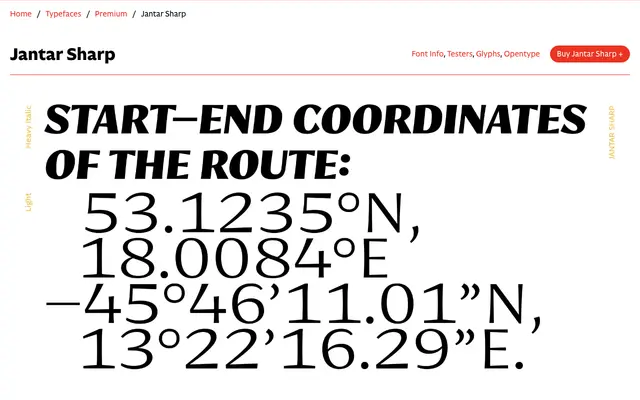
Jantar Sharp
CAST · Radek Łukasiewicz · 2019
A text family by Radek Łukasiewicz built on flared terminals that sits between serif and sans, optimised for continuous reading across print and screen.
Seven weights from ExtraLight to Heavy, each with a matching italic, give the family considerable range without straying from its core purpose of sustained reading. The flared stroke endings borrow selectively from different historical periods rather than replicating any single model, producing shapes that feel organic rather than stylistically prescribed. OpenType features include proportional and tabular figures in both oldstyle and lining variants, small capitals, superscripts, subscripts and extensive diacritics covering all European languages.
Jantar Sharp occupies an intentional middle ground between serif and sans, defined by flared stroke terminals rather than bracketed serifs; it draws from multiple historical periods without committing to a single model, placing it closest to a flared or transitional hybrid.